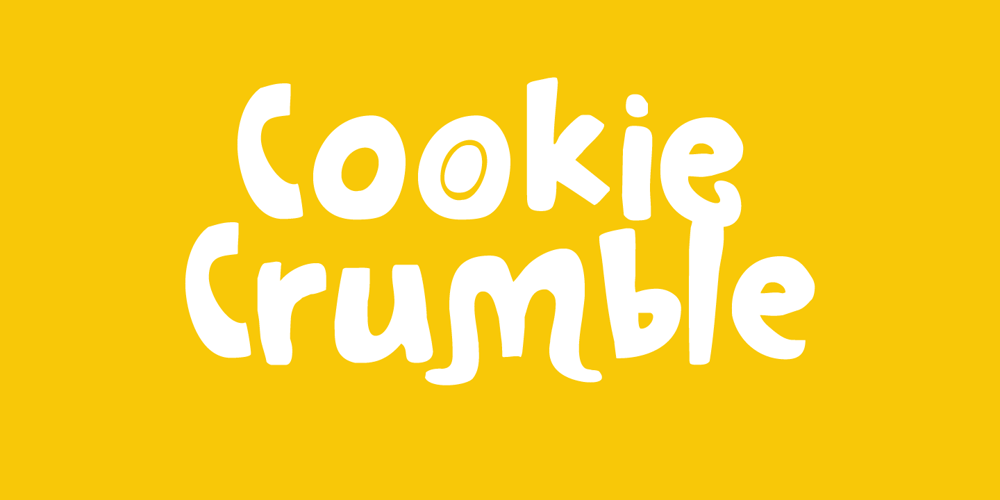
Cookie Crumble
Cookie Crumble font
Cookie Crumble Font Family was designed by David Kerkhoff and published by Hanoded. Cookie Crumble contains 2 styles and family package options. I like cookies. Especially butter cookies and ginger nuts. The word cookie comes from the Dutch word ‘koekje’ – which means exactly the same. Cookie Crumble is a cute little font that I made on a rainy day. I just needed something that looked and sounded happy and I guess it applies to this font. Cookie Crumble comes with a bunch of alternates, a full set of diacritics and a bit of sunshine to chase away your rainy day.